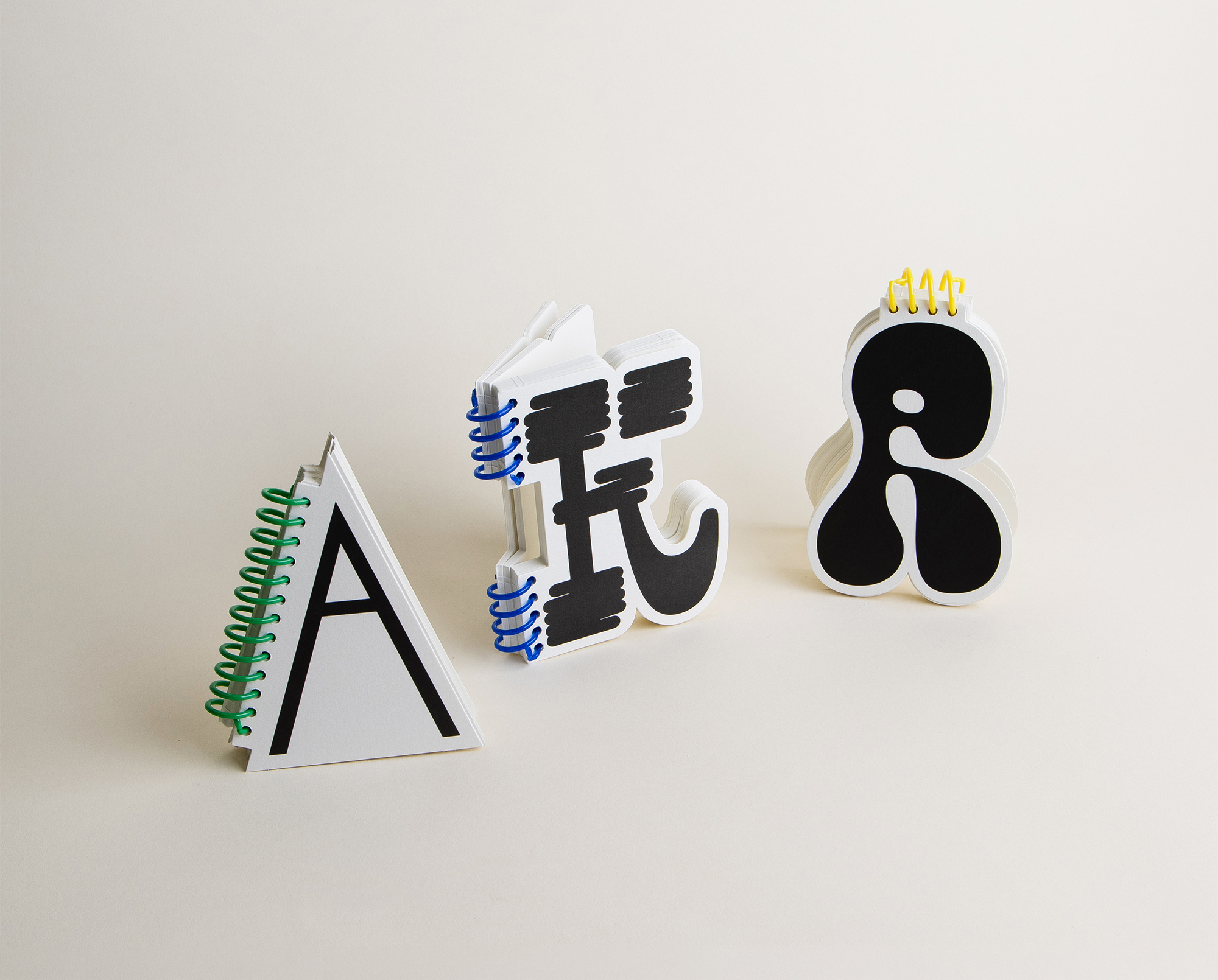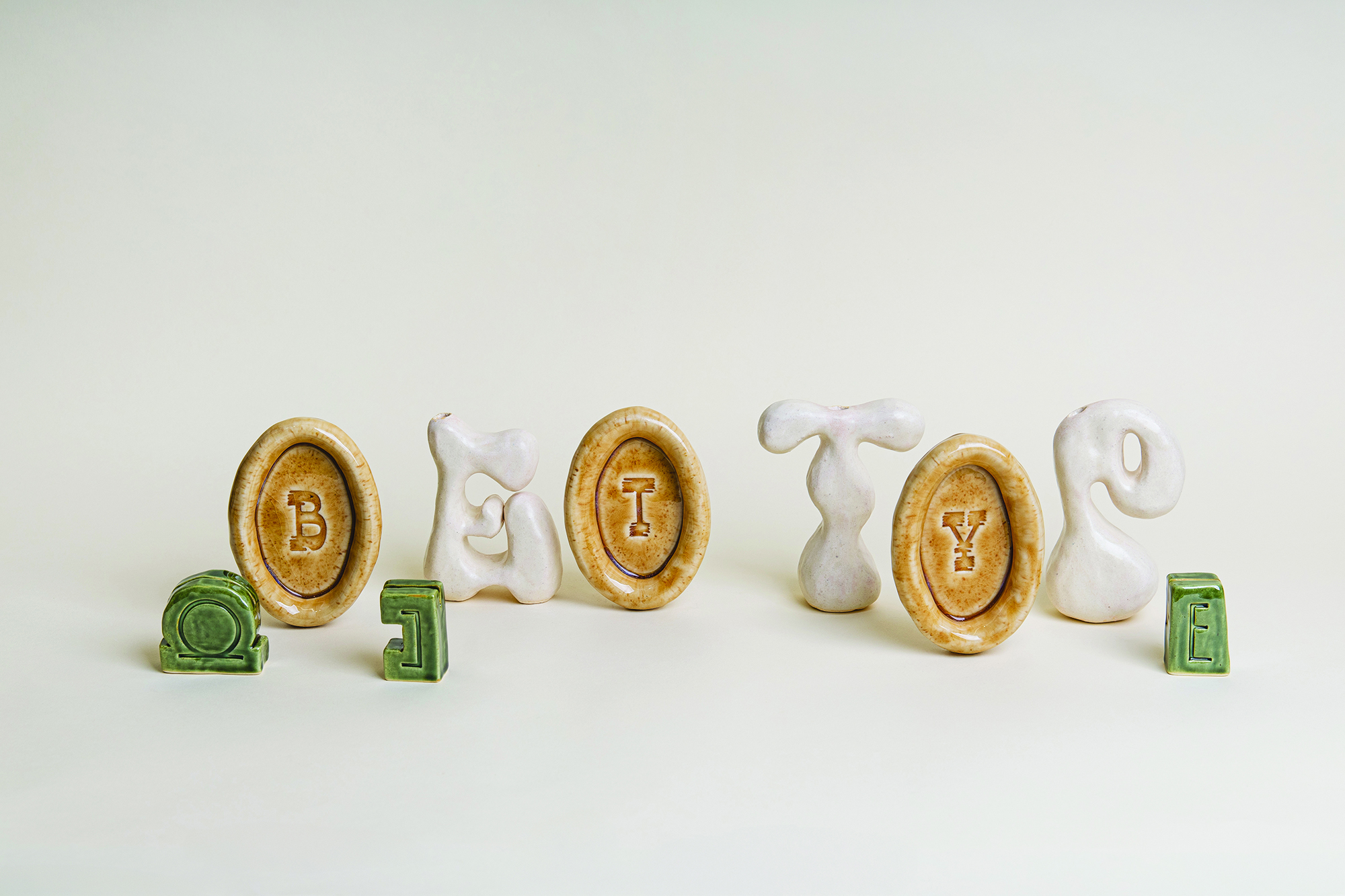
Amorphous, Fluid, Organic, Undefined, Boundless, Seamless, Formless, Unstructured, Shapeless, Mutable, Ethereal, Weightless, Abstract, Elusive, Flowing, Irregular, Asymmetrical, Freeform, Evolving, Expanding, Drifting, Soft-edged, Ever-changing, Indeterminate, Unconfined, Borderless, Continuous, Non-linear, Adaptive, Spectral, Dynamic, Nebulous
NU Amorphic Family
NU 아모픽 패밀리
Volume 2 «Objet Type» Nutype's second project, through combine with 'Cermaic art', has expanded the font to physically sense and experience, not just visual elements. At the same time, ceramic art combined with fonts, transcend their materiality and offer new ways of interpretation and experience in digital. This project focuses on exploring an experiential exchange that has not been attempted in each respective field. Based on three characteristics of ceramic art, we have created three typefaces. NU Amorphic is derived from the Greek a- (absent) + morphe (form), meaning “having no fixed shape.” NU Amorphic breaks away from the formality and balance of traditional Latin typefaces, and functions as a sculptural object that transcends type with its natural flowing lines and unpredictable shapes.
Through amorphic type, the act of reading is no longer a passive engagement; it demands exploration. The eye glides through the text as if navigating a liquid surface, encountering moments of clarity interwoven with abstraction. There is no single perspective, no definitive structure—only a shifting interplay of elements, a choreography of evolving forms.
Amorphic type exists within the spectrum of weightlessness and presence, never fully contained yet never entirely absent. It evokes a sense of dissolution—edges fade, contours blur, and meanings shift as the eye navigates its fluid structures. The characters seem to dissolve into one another, creating layered compositions that reject the static nature of conventional type. They hover, suspended in space, challenging the notion of fixed identity within a letterform.
- Objet